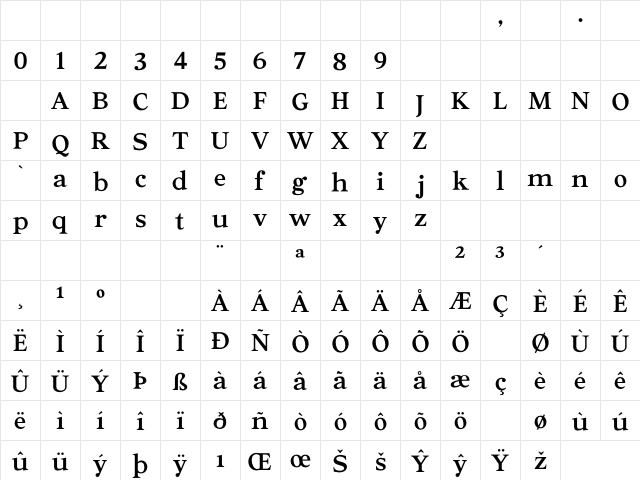
Complete Ascendant Serif - Personal Use Bold glyph index. Displaying only characters natively supported by Ascendant Serif - Personal Use Bold font.
Ascendant Serif - Personal Use carries the refined structure of traditional serif typography, with bracketed terminals and considered proportions that communicate credibility and craft. Its bold stroke weight gives it real presence on the page.
Pro Tip: Use Ascendant Serif - Personal Use for editorial body copy and considered headline work. Pair with a neutral sans for UI elements or captions to create a classic hierarchy.